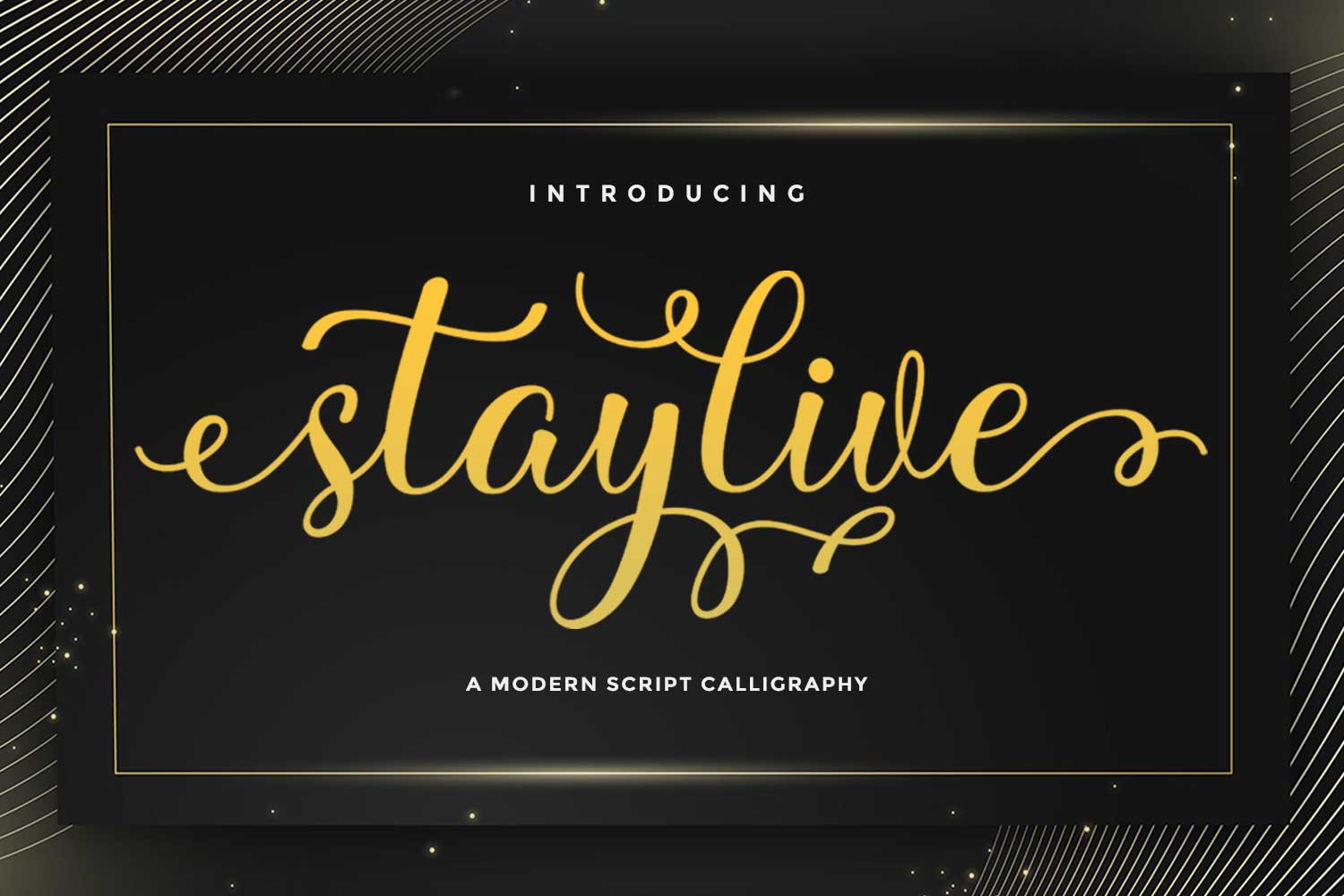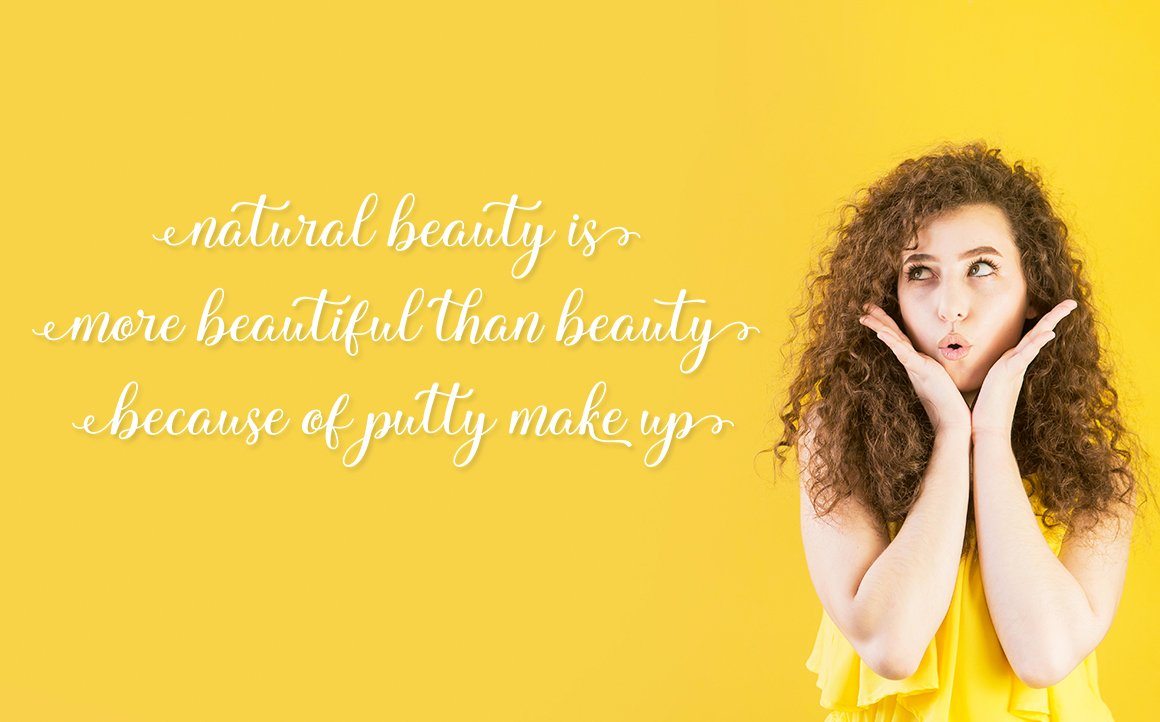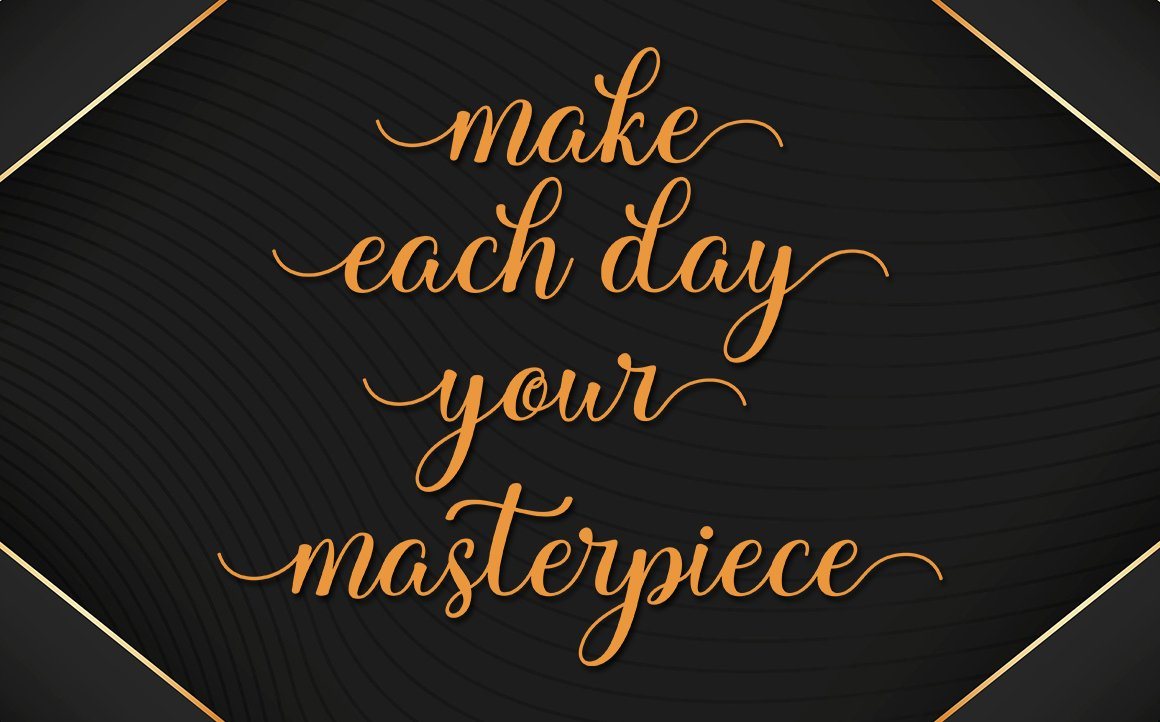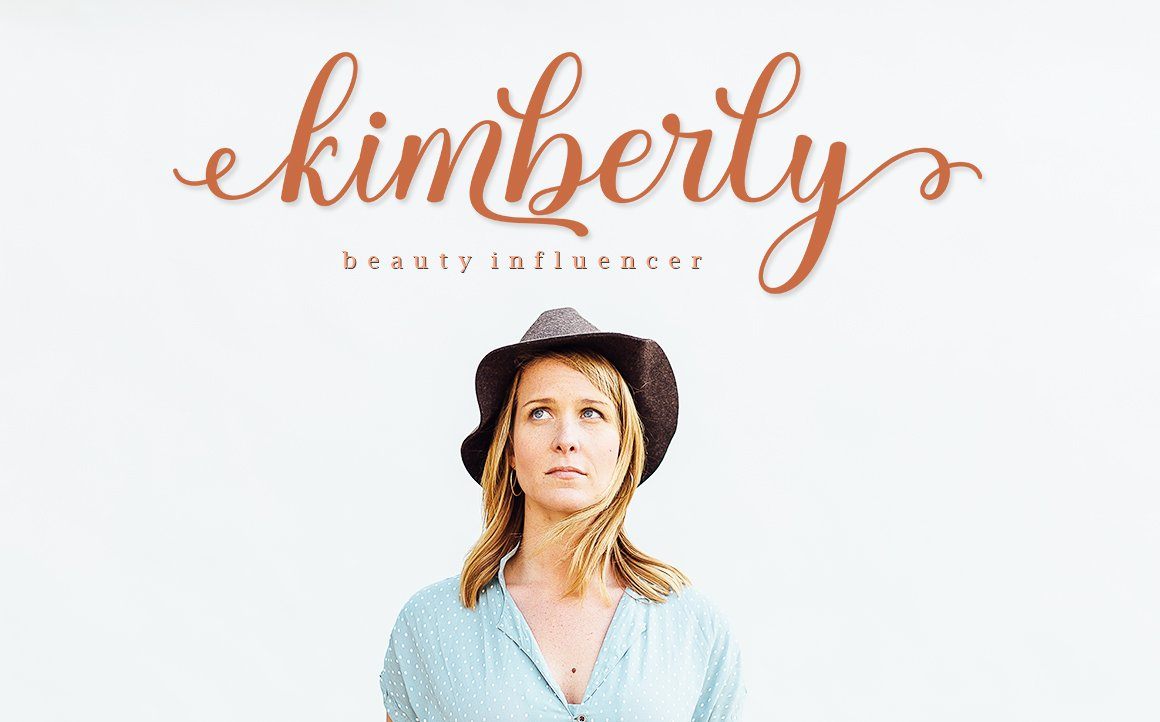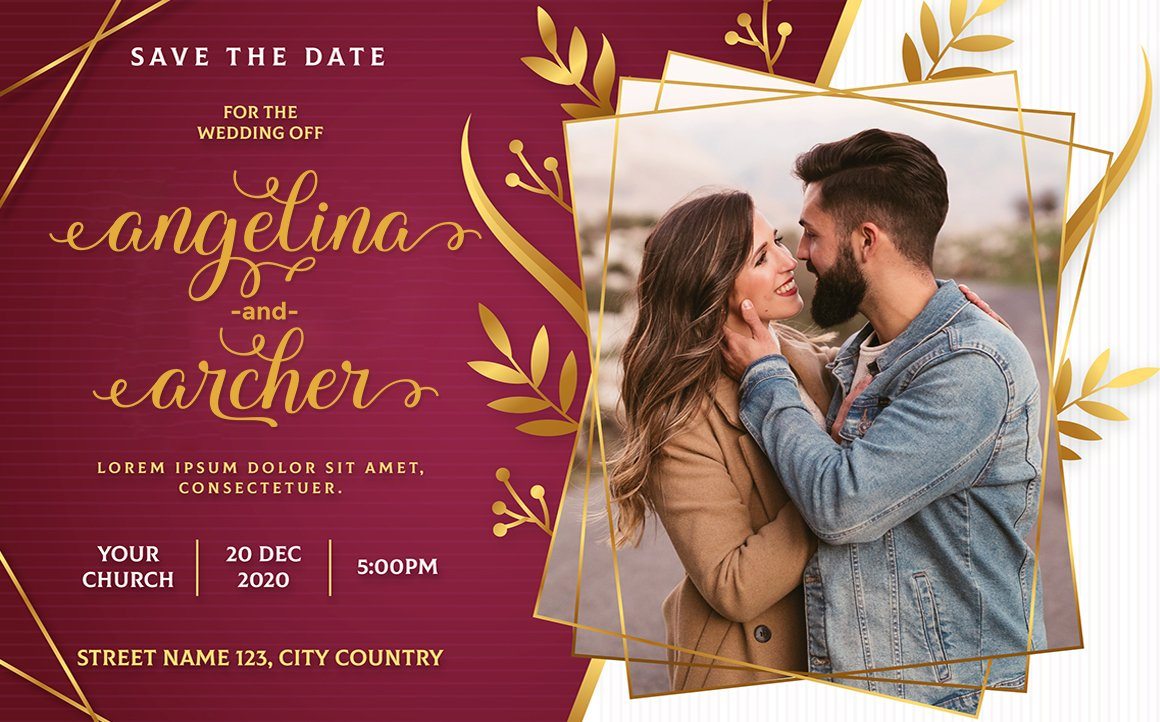
About Staylive
staylive is a beautiful calligraphy font with many alternative styles & leaf swashes, it looks natural, elegant and perfect for any extraordinary project. staylive is suitable for a wide range of products such as invitations, product packaging, quotes, product design, crafters, labels, photography, watermarks, logos & branding. Everything can be accessed using software that supports Opentype, such as Adobe Indesign, Adobe CS Illustrator, Adobe Photoshop CC, and Corel Draw. You will get: staylive OTF staylive TTF Thank you & happy design 🙂